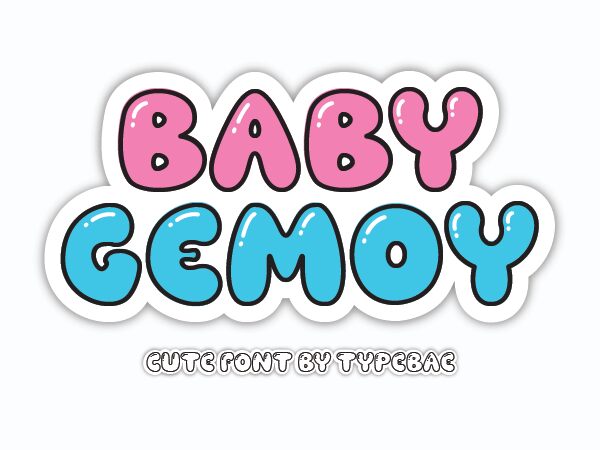
Baby Gemoy font by Typebae Foundry is a cartoon font with a bubbly childlike twist. It is a fun modern typeface with a cheerful aesthetic that makes it charming, whimsical, and friendly. Letters have a unique look that will catch the attention of all age groups – children included. Other keywords related to its style are flexibility and creative flair.
Use it in book or magazine covers, games UI, online, printed titles such as those in a menu, promotional material, advertising content, branding, and packaging. A wide range of products can be enhanced with the use of this font.